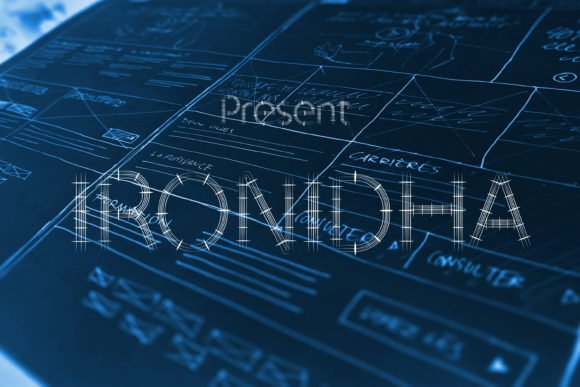
The Perfect Font for Unleashing Your Creativity
Have you ever stared at a blank page, waiting for inspiration to strike? You’re not alone. As creatives, we’ve all been there – searching for that spark that brings our ideas to life. And when it happens, it’s pure magic. Suddenly, words flow effortlessly, and your vision takes shape.
One of the most crucial elements in making that vision a reality is the font you choose. That’s where the Ironidha Font comes in – a stunning, uniquely designed decorative font that elevates any design to the next level. Whether you’re creating a poster, flyer, or print, this font is sure to make a lasting impression.
As a designer, you know how valuable a great font can be. It’s not just about aesthetics; it’s about conveying your message and connecting with your audience. With the Ironidha Font, you’ll have endless possibilities at your fingertips.
Ironidha Font Key Features
- Font Family: Ironidha
- Unique Characteristics: A modern sans-serif font with geometric shapes and clean lines, suitable for digital and print media.
Ironidha Font Review
As a designer, I’ve had the chance to work with various fonts, and I must say that Ironidha Font is an interesting addition to the family.
- ✨ Unique and modern design: The font has a distinctive look that sets it apart from more traditional fonts.
- ✨ Wide range of characters: The font includes a wide range of characters, including some unique and creative glyphs.
- ✨ Good legibility: Despite its modern design, the font is still quite legible and easy to read.
- ⚠️ Limited font sizes: The font doesn’t look great at very small or very large sizes, which can be a limitation for certain projects.
- ⚠️ Limited compatibility: I’ve found that the font doesn’t work as well in certain fonts and operating systems, which can be a problem for designers who need to cater to a wide range of clients.
Overall impression:
While Ironidha Font has its limitations, I think it’s a solid choice for designers who want to add a touch of modernity to their projects. With its unique design and wide range of characters, it’s a great option for creative projects, but may not be the best choice for more traditional or formal designs.
Tips for Getting the Most Out of Ironidha Font
Experiment with different font sizes and styles to create visually appealing designs.
Use Ironidha Font in combination with other fonts to create a unique and stylish look.
Keep in mind the font’s readability and adjust the font size accordingly.
Alternatives to Ironidha Font
Montserrat is a popular sans-serif font designed by Julieta Ulanovsky. It is a clean and modern font that is perfect for digital interfaces, web design, and mobile apps. Montserrat is a great alternative to Ironidha Font as it has a similar modern feel, but with a more geometric and minimalist approach.
Inter is a sans-serif font designed by Rasmus Andersson. It is a highly versatile font that is suitable for a wide range of applications, from body text to headlines. Inter is a great alternative to Ironidha Font as it has a similar clean and modern look, but with a more neutral and understated feel.
Merriweather Sans
Merriweather Sans is a sans-serif font designed by Eben Sorkin. It is a classic and elegant font that is perfect for print and digital designs. Merriweather Sans is a great alternative to Ironidha Font as it has a similar classic feel, but with a more refined and sophisticated approach.
Open Sans is a sans-serif font designed by Steve Matteson. It is a highly legible font that is suitable for a wide range of applications, from body text to headlines. Open Sans is a great alternative to Ironidha Font as it has a similar clean and modern look, but with a more friendly and approachable feel.